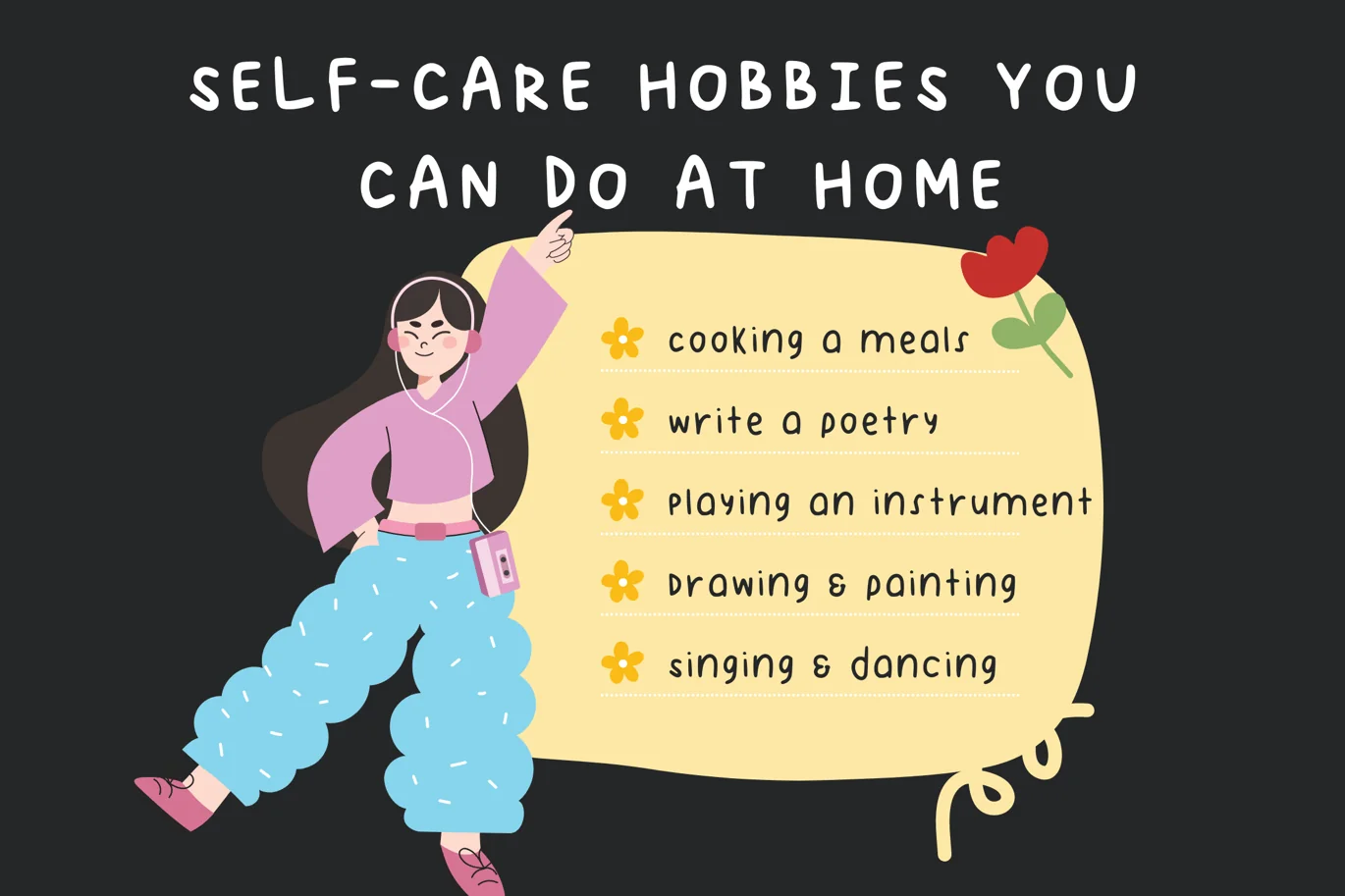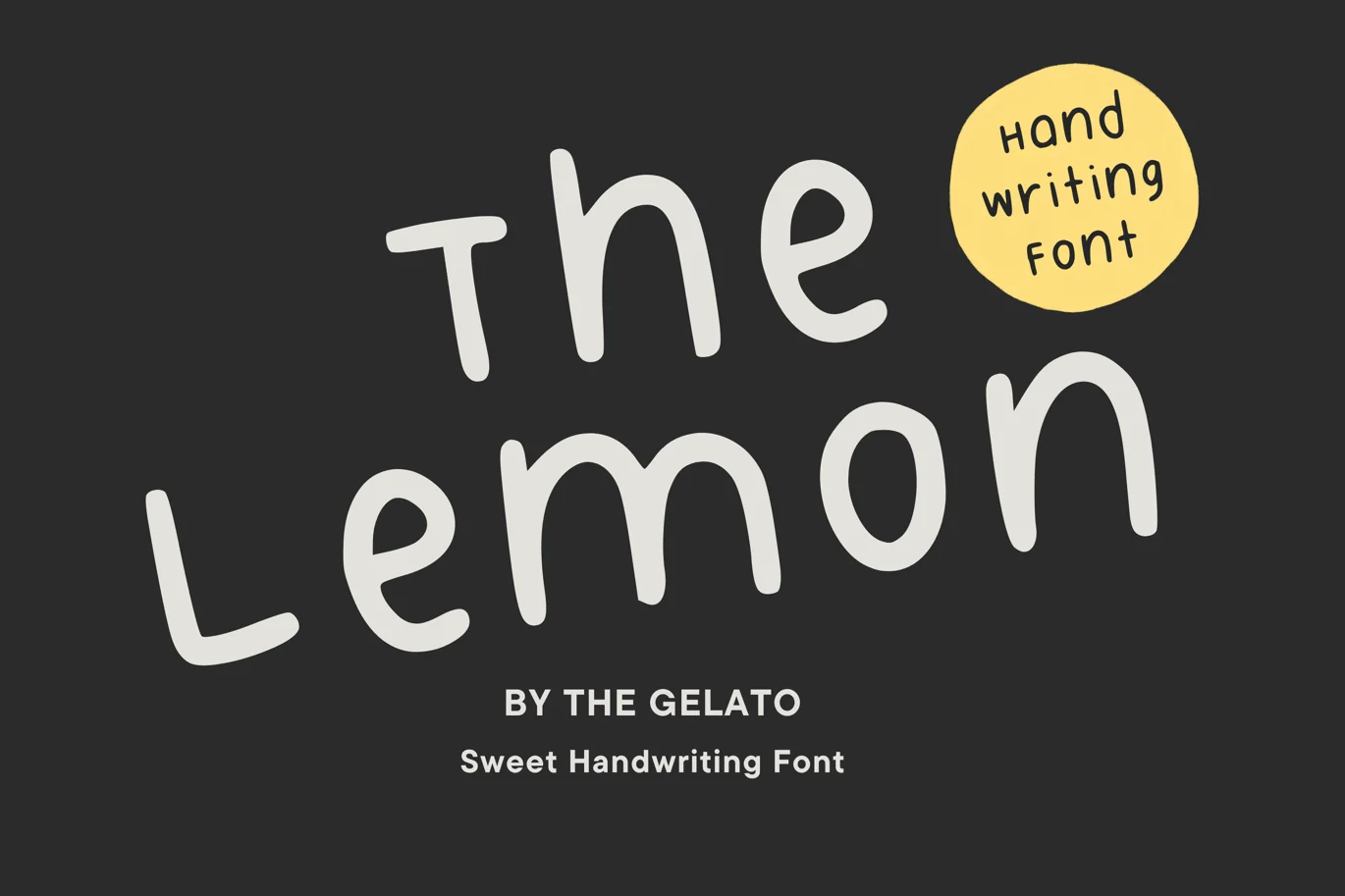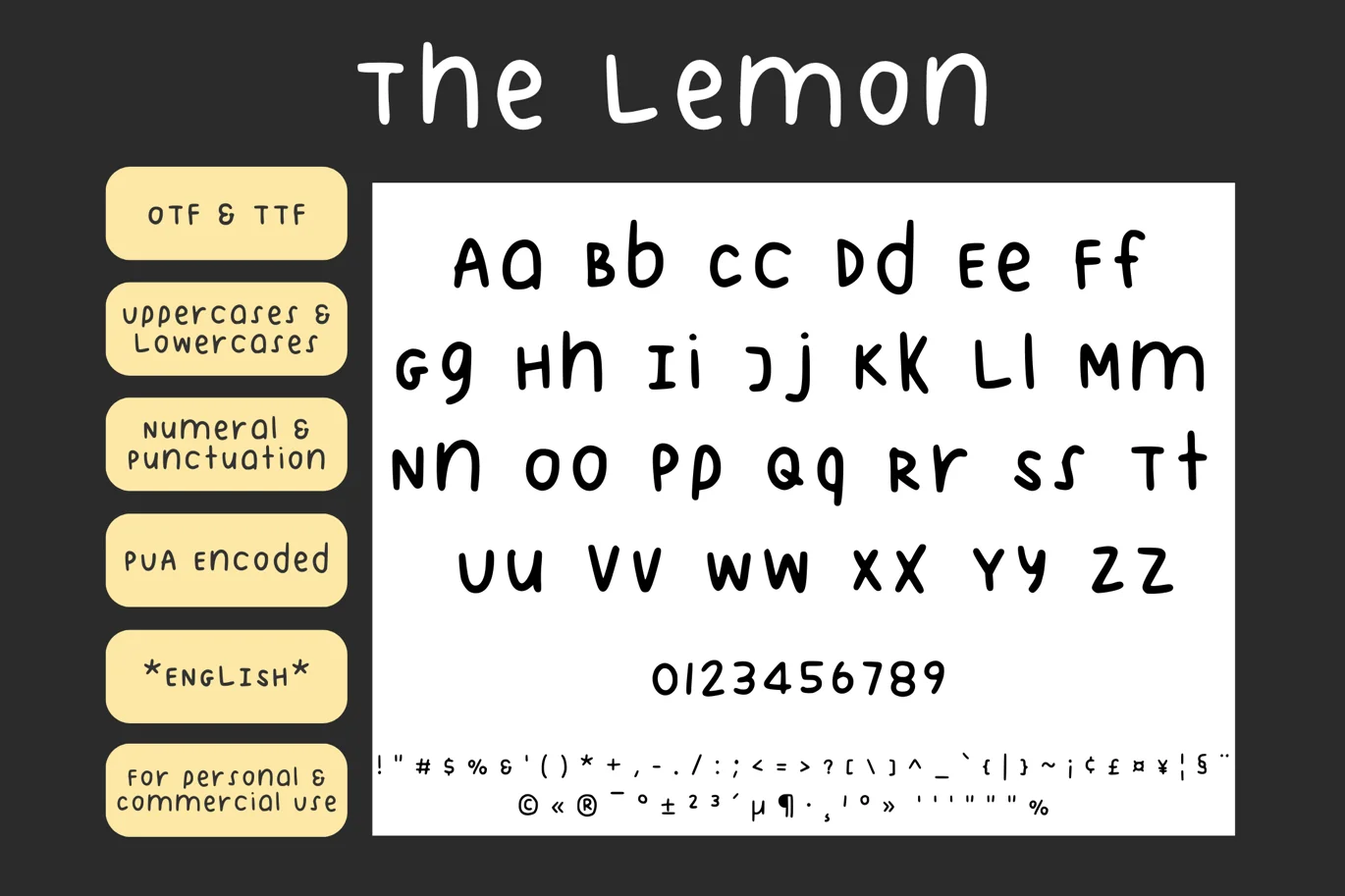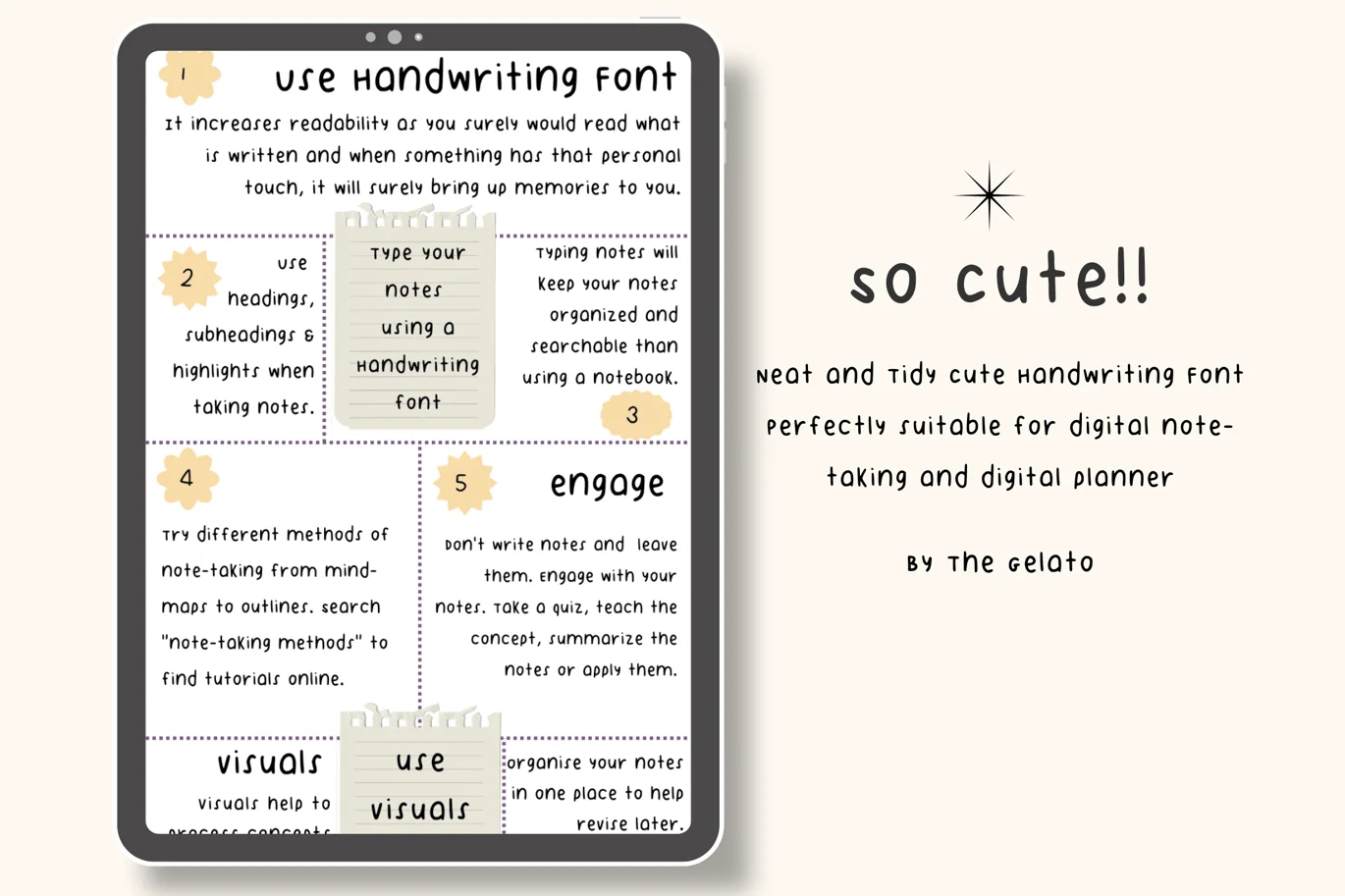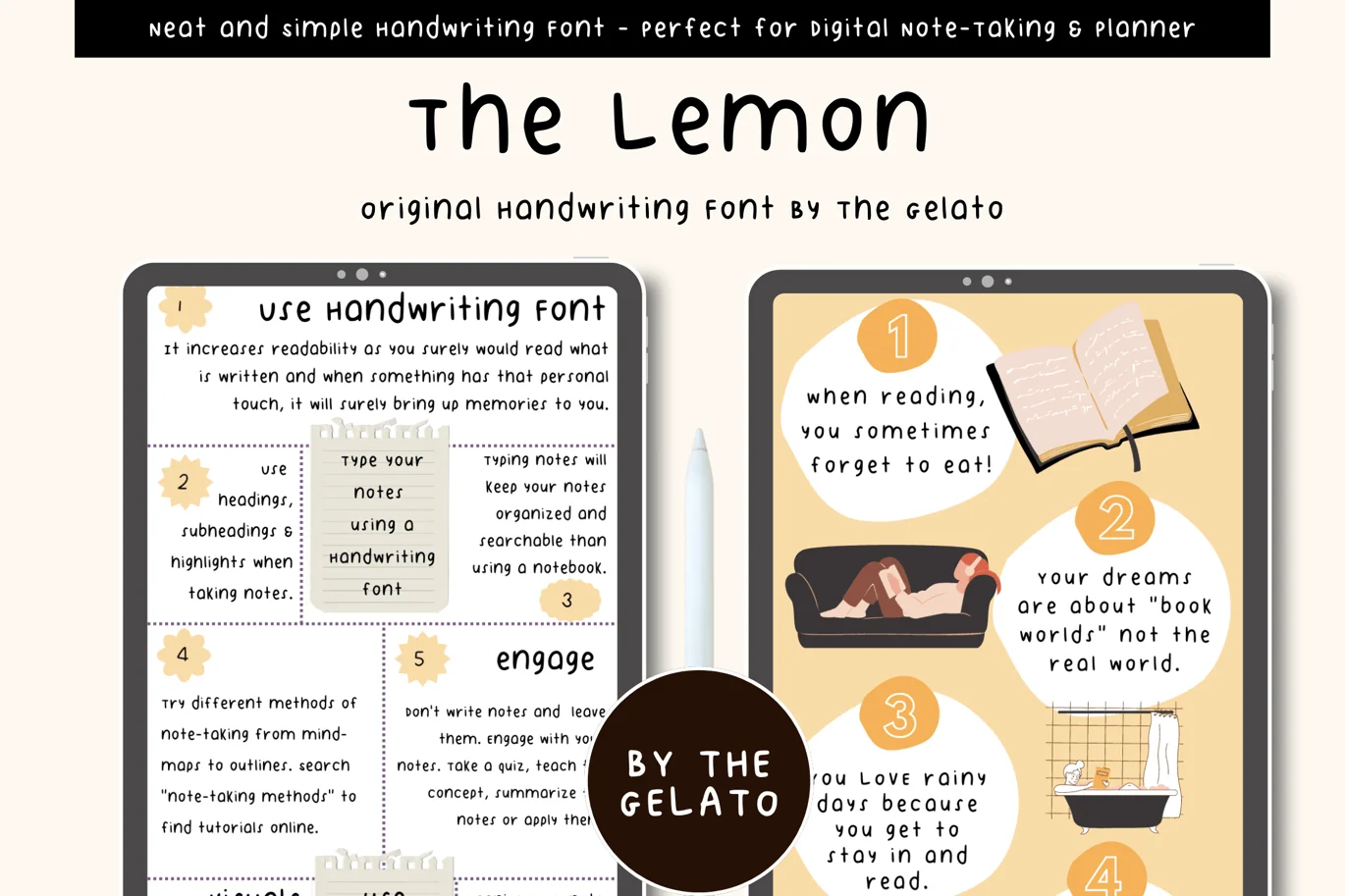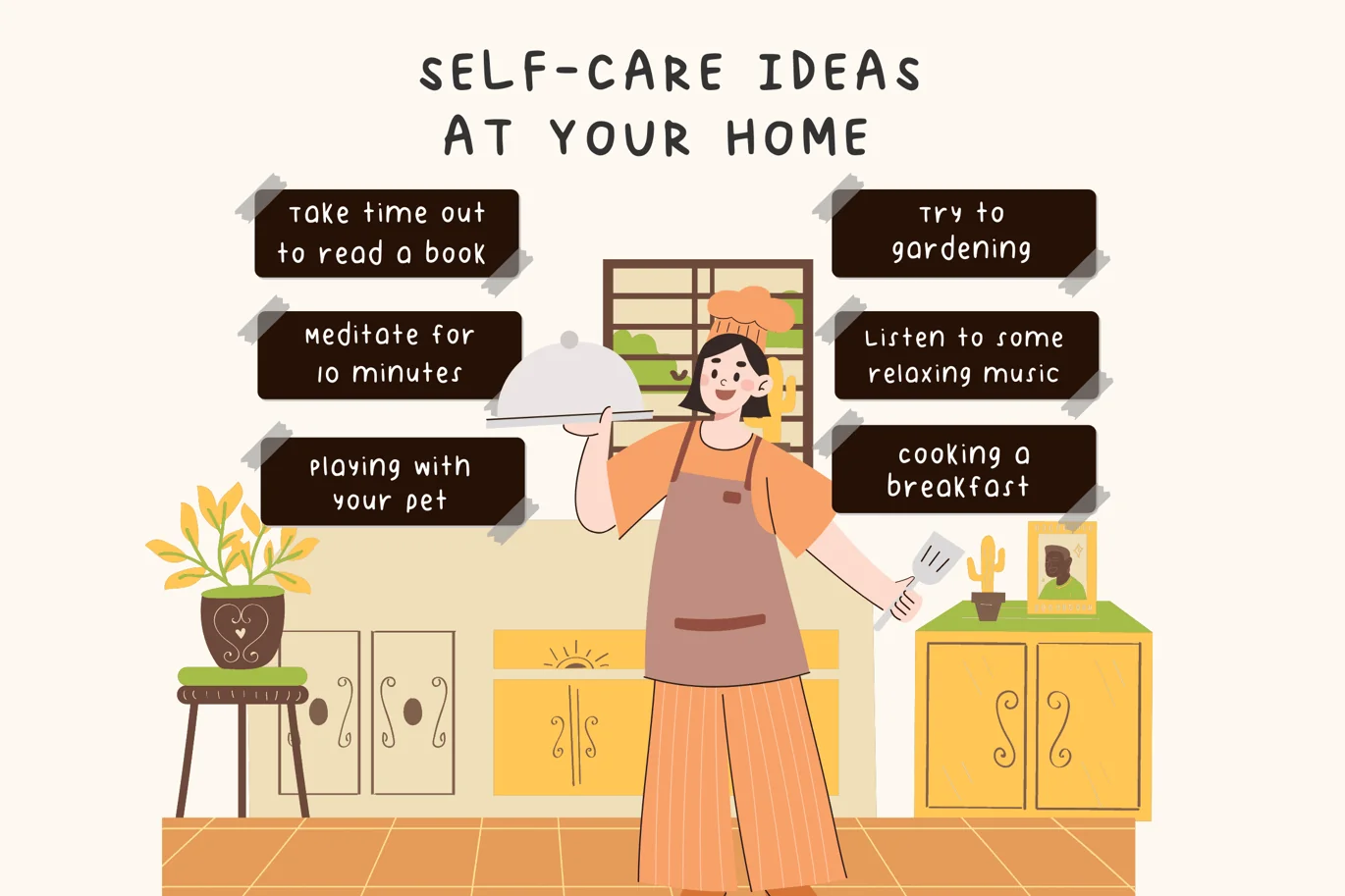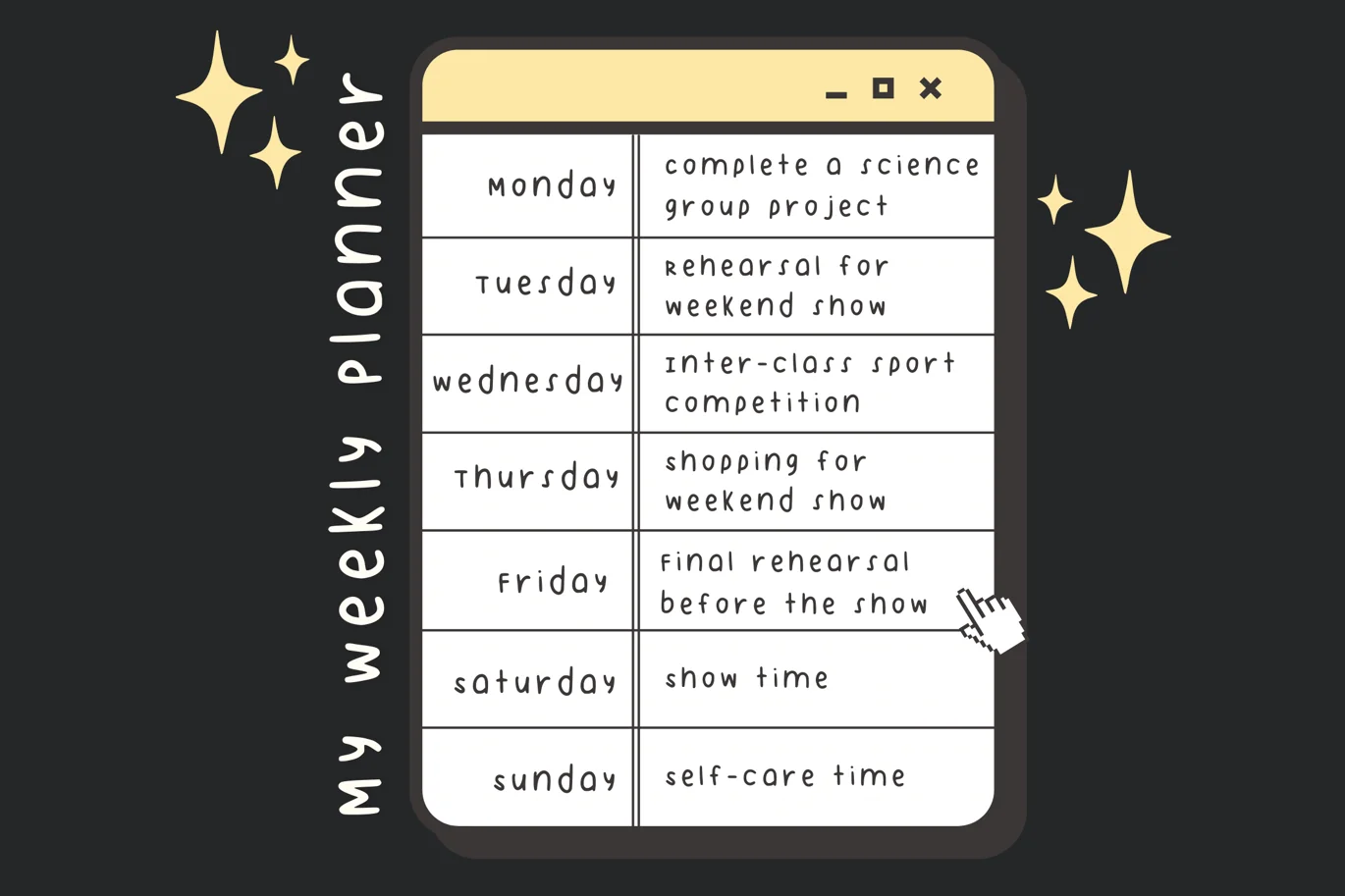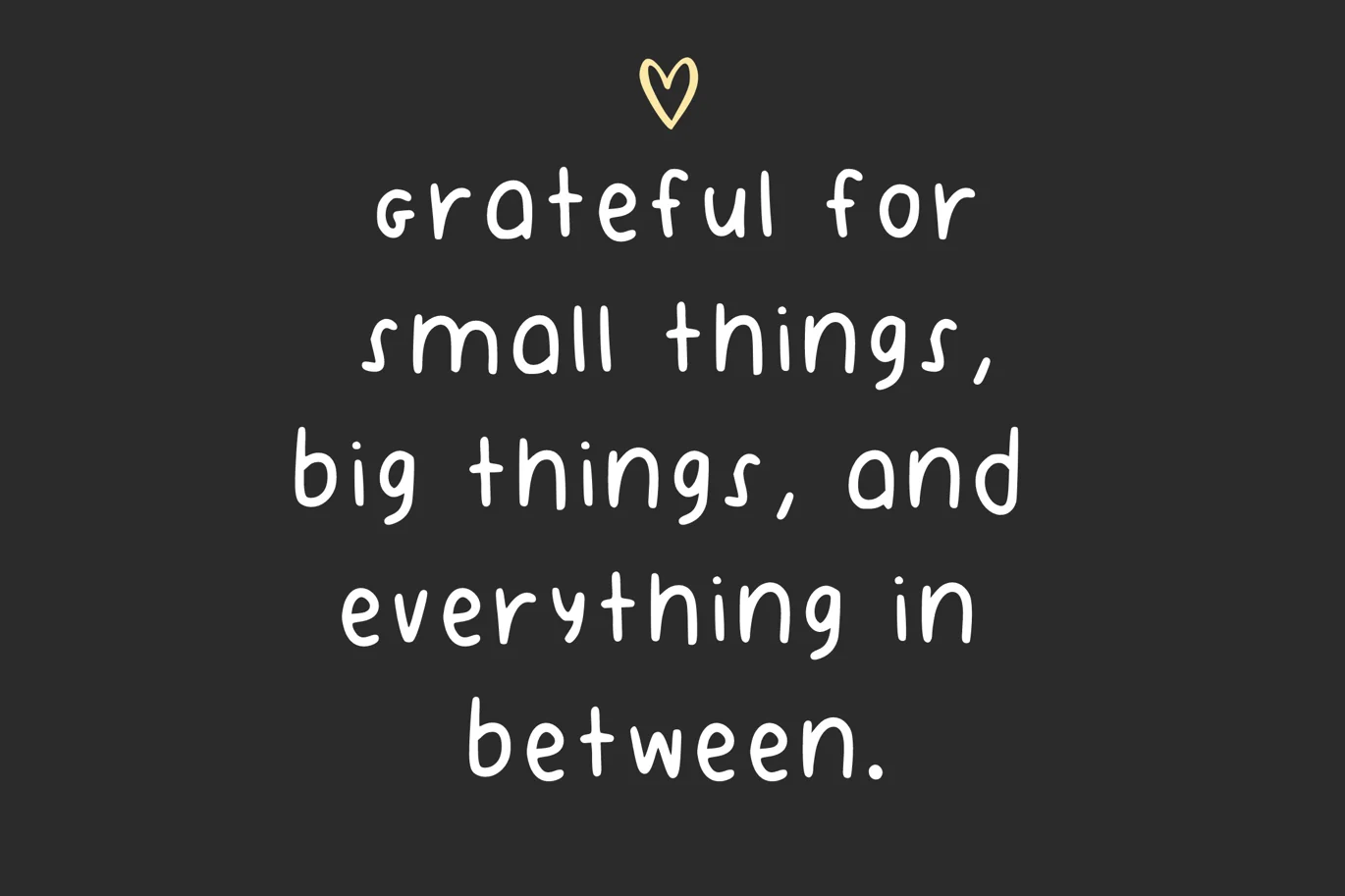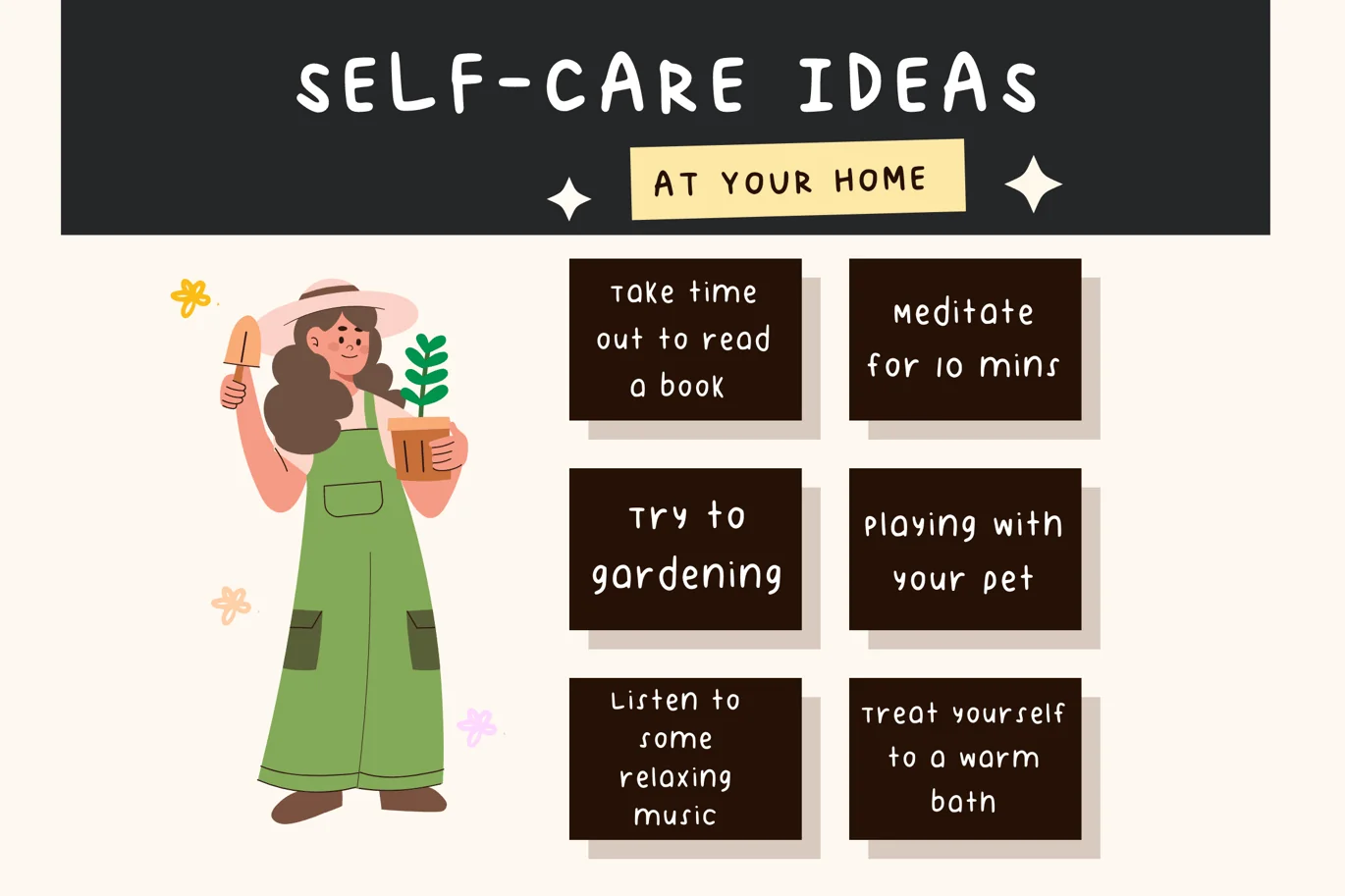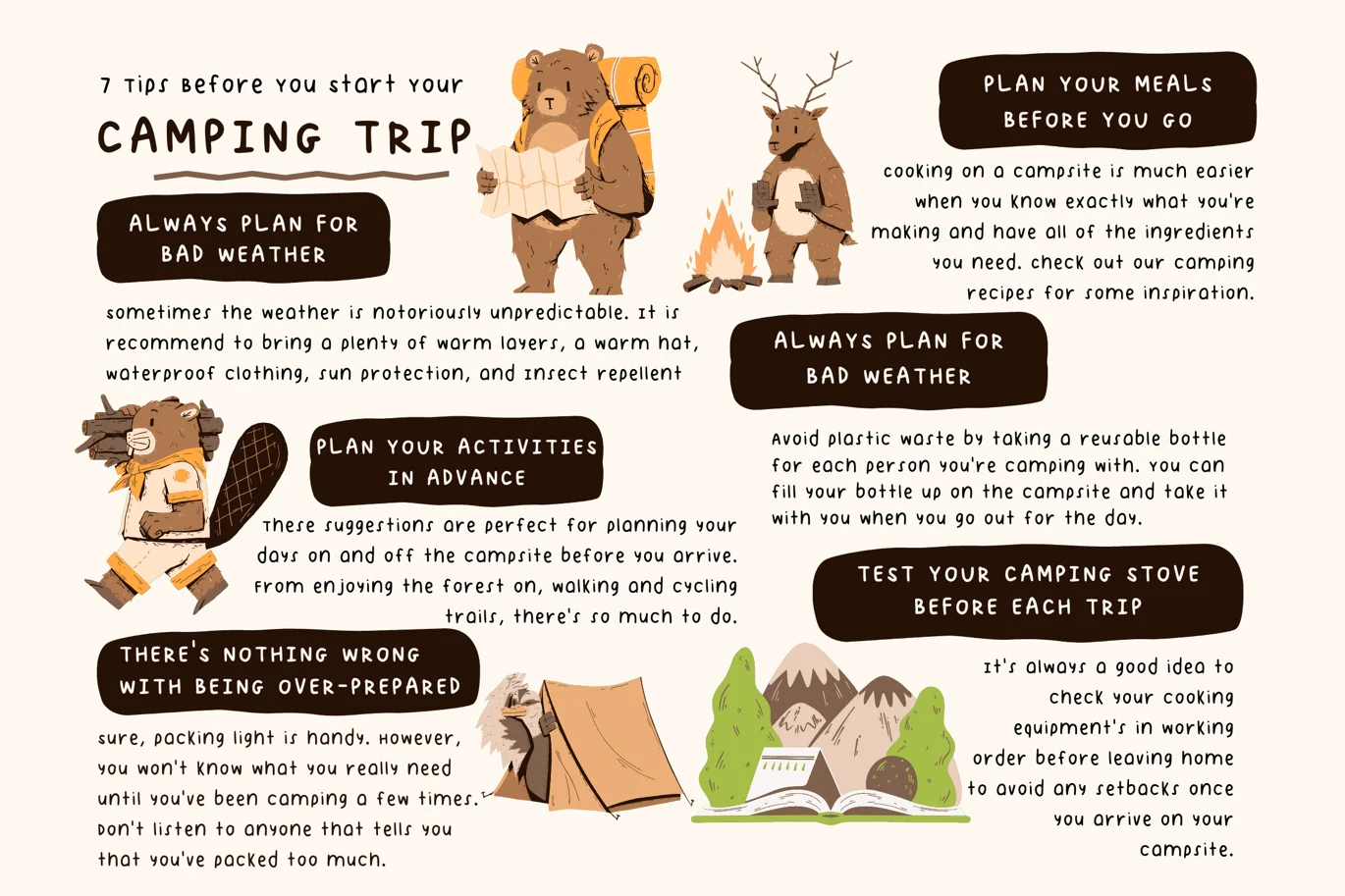
The Lemon Handwriting Font
The Lemon font is a very neat handwritten font that can be used as Simple Handwriting Font, Note Font, Digital Note Taking Font, Planner Font, Neat Handwriting Font. Journaling Font, Farmhouse Font, Monoline Handwriting Font, Neat Tidy Font, Handwritten Embroidery Font, Monoline Lettering Font, Note Font, Study Font
Perfectly suitable for numerous use such as quotations, banners, logos, product packaging, titles, headers, menu lists and even for digital note taking! Also, can work well on iPad planners, digital planners, GoodNotes templates, and other digital notes and journals.